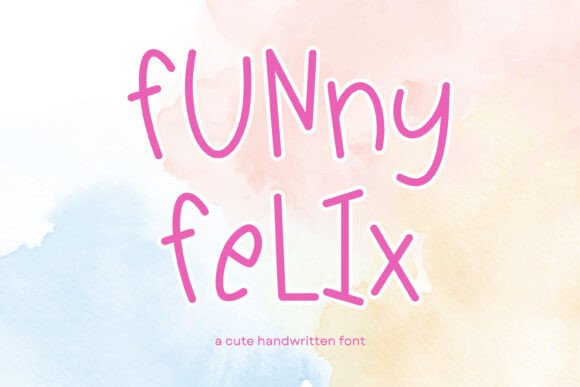
Introducing Funny Felix Font: The Playful and Charming Handwritten Font for Creative Projects
In the world of typography, a font can make all the difference in bringing a design to life. If you’re looking for a font that exudes playfulness, charm, and a personal touch, look no further than Funny Felix Font. This delightful handwritten font is perfect for adding a unique and whimsical flair to your designs, making it an excellent choice for a wide range of creative projects.
Key Features of Funny Felix Font
- Smooth Curves: Funny Felix boasts smooth, flowing curves that give it a friendly and approachable feel.
- Quirky Style: The font’s quirky style adds a touch of whimsy and playfulness, making it perfect for designs that require a bit of personality.
Ideal Use Cases for Funny Felix Font
Funny Felix Font is perfect for a variety of creative projects, including:
- Posters: Add a playful touch to your posters with Funny Felix, making them stand out and grab attention.
- Invitations: Create unique and personalized invitations for parties, events, or special occasions.
- Quotes: Add a touch of whimsy to your inspirational quotes, making them more engaging and shareable.
- Cards: Design beautiful and playful greeting cards for birthdays, holidays, or everyday occasions.
- Printable Art: Bring a cheerful vibe to your printable art, making it perfect for home decor or gifts.
The Benefits of Using Funny Felix Font in Your Designs
Using Funny Felix Font in your designs offers several benefits, including:
- Warm and Inviting Aesthetics: The font’s playful and charming nature creates a warm and inviting atmosphere, perfect for art-related or motivational themes.
- Personal Touch: Funny Felix adds a personal touch to your designs, making them more relatable and engaging.
Design Tips for Using Funny Felix Font
To get the most out of Funny Felix Font, consider the following design tips:
- Pair with Other Fonts: Combine Funny Felix with other fonts to create a unique and visually appealing typography.
- Experiment with Colors: Play with different colors to find the perfect match for your design and the font’s playful vibe.
- Keep it Simple: Don’t overcomplicate your design – Funny Felix Font is perfect for simple, yet effective designs.
- Font Type: Handwritten font
In conclusion, Funny Felix Font is a playful and charming handwritten font that’s perfect for adding a personal touch to your designs. Its smooth curves, quirky style, and versatility make it an excellent choice for a wide range of creative projects. Whether you’re working on digital designs or printable art, Funny Felix brings a cheerful and friendly vibe to any project. So why not give it a try and see how it can elevate your designs?